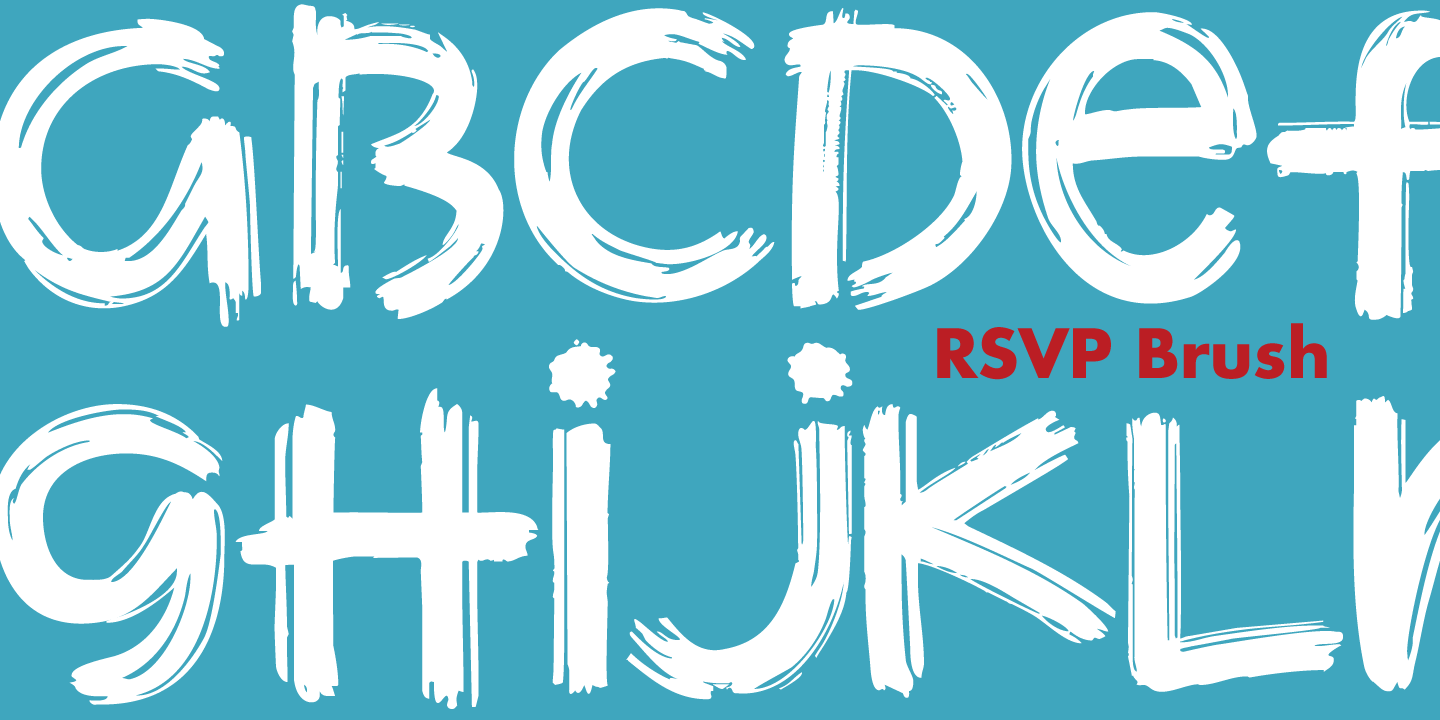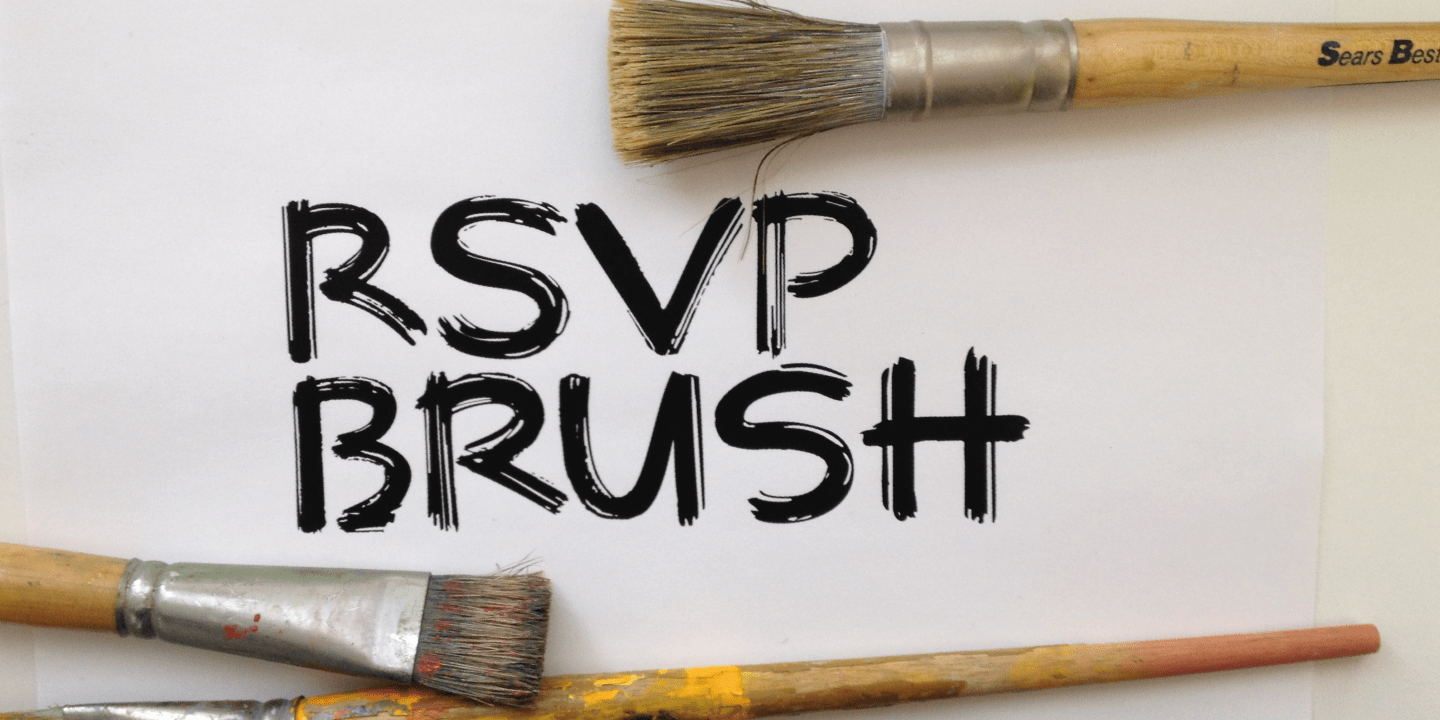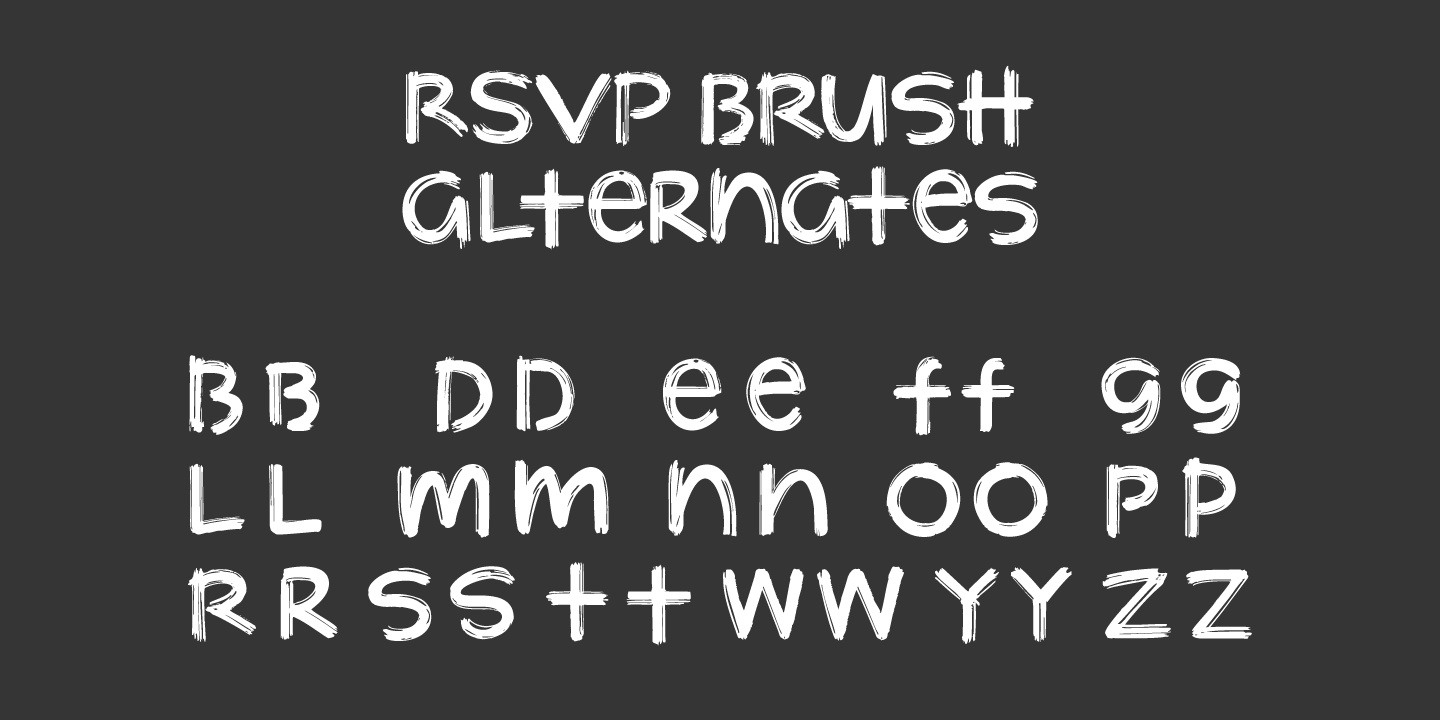
RSVP Brush is a fresh, bold, confident brush font. The bigger the better… great for posters, signs, a headline or a small block of copy. Versatile and quirky. Turn on Contextual Alternates in supporting programs so multiple letters do not repeat.…